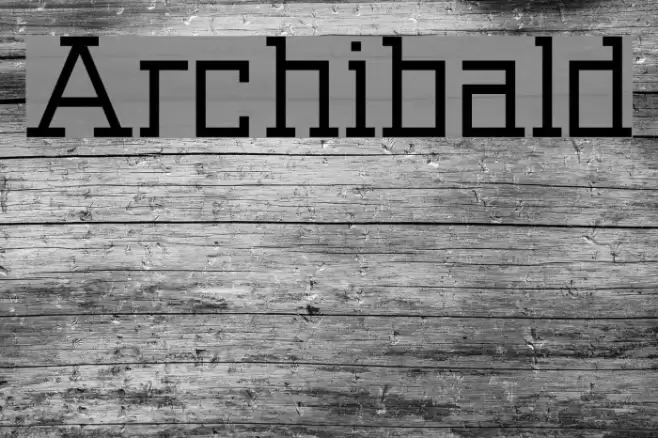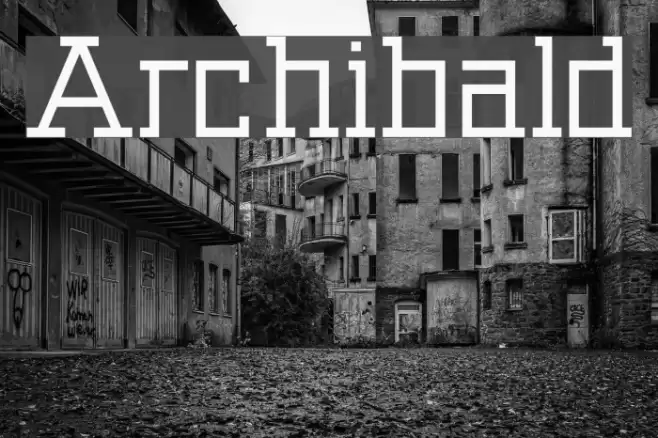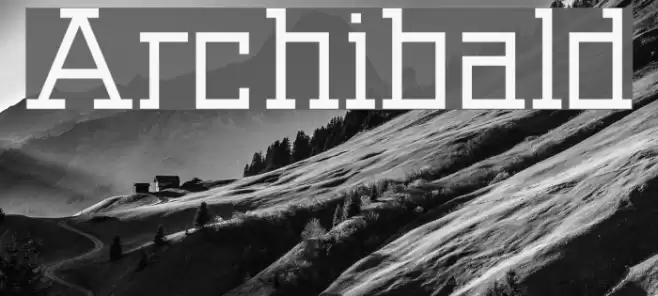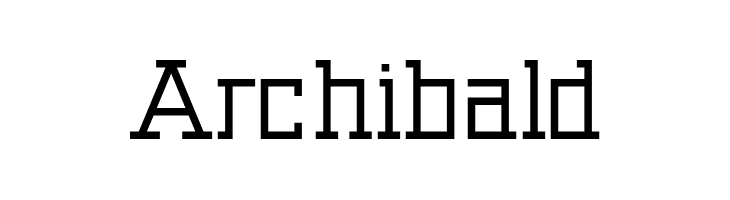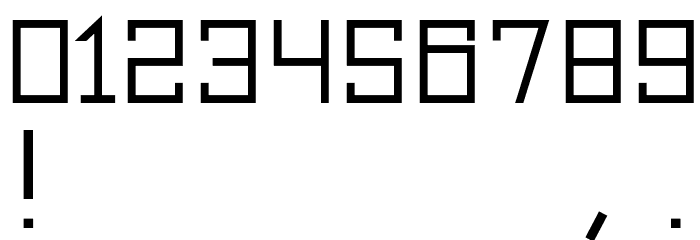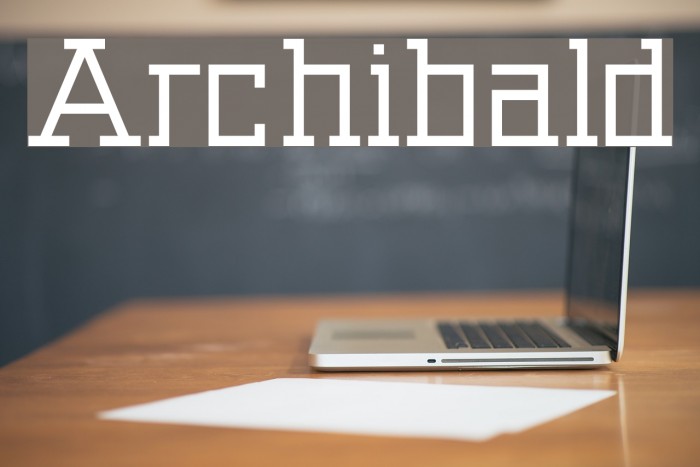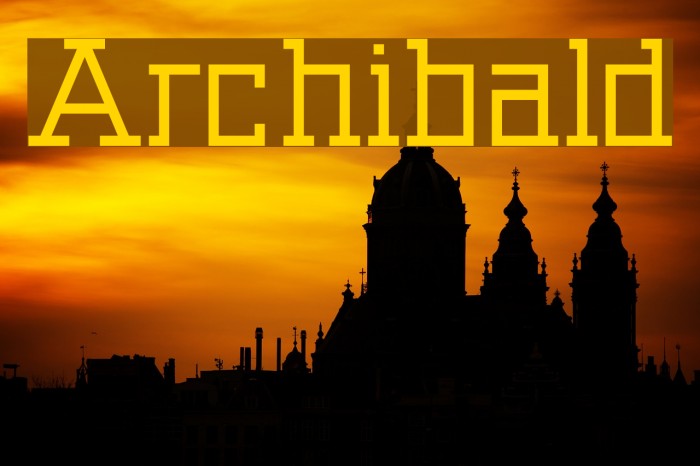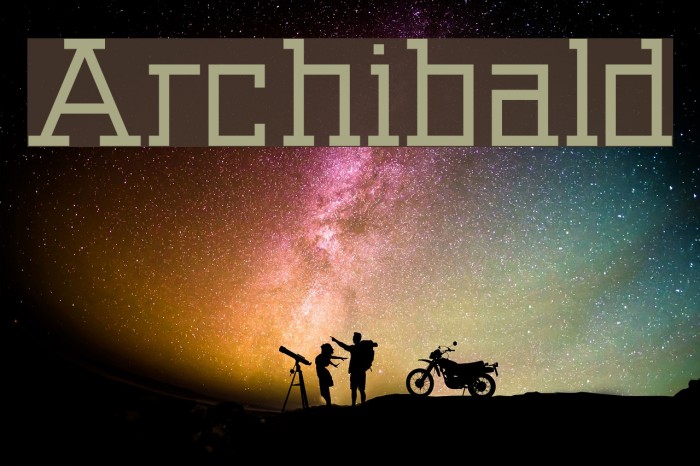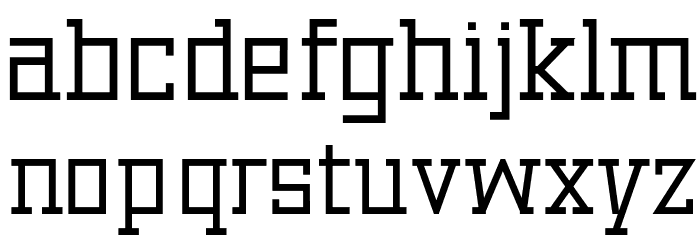
Archibald Font
Archibald Description
This font features a geometric and structured design with a modern twist. The characters are formed with precise, straight lines and right angles, giving it a mechanical and technical appearance. The uppercase letters are bold and commanding, while the lowercase letters maintain a consistent style with slightly softer edges. The numerals are clear and easy to read, matching the overall aesthetic of the font. Special characters are designed with the same attention to detail, ensuring uniformity across all glyphs. This font is ideal for projects that require a clean, modern, and industrial feel.
A geometric, structured font with a modern, technical appearance from Uncategorized fonts.
- Proposed Projects: Ideal for technology branding, architectural designs, modern posters, and digital interfaces.
- Use Case: Logos, Headlines, Digital interfaces